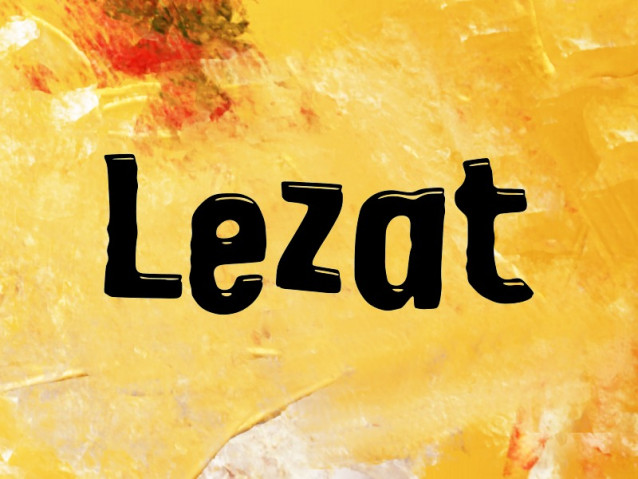
Lezat Font
Lezat Font is a simple and modern display font suitable for quotes, logos, headings, titles, and many more. Use it on any of your creative projects, and your designs will become outstanding!